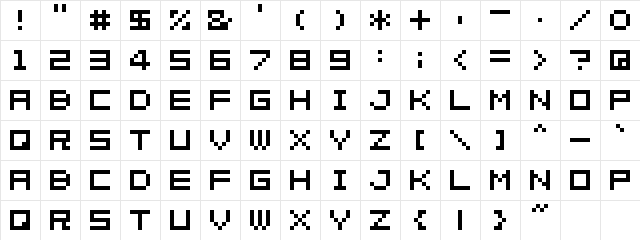
04b_08 Regular
Design Context for 04b_08 Typeface
04b_08 is a composed and adaptable typeface that performs quietly and consistently across a wide range of design contexts.